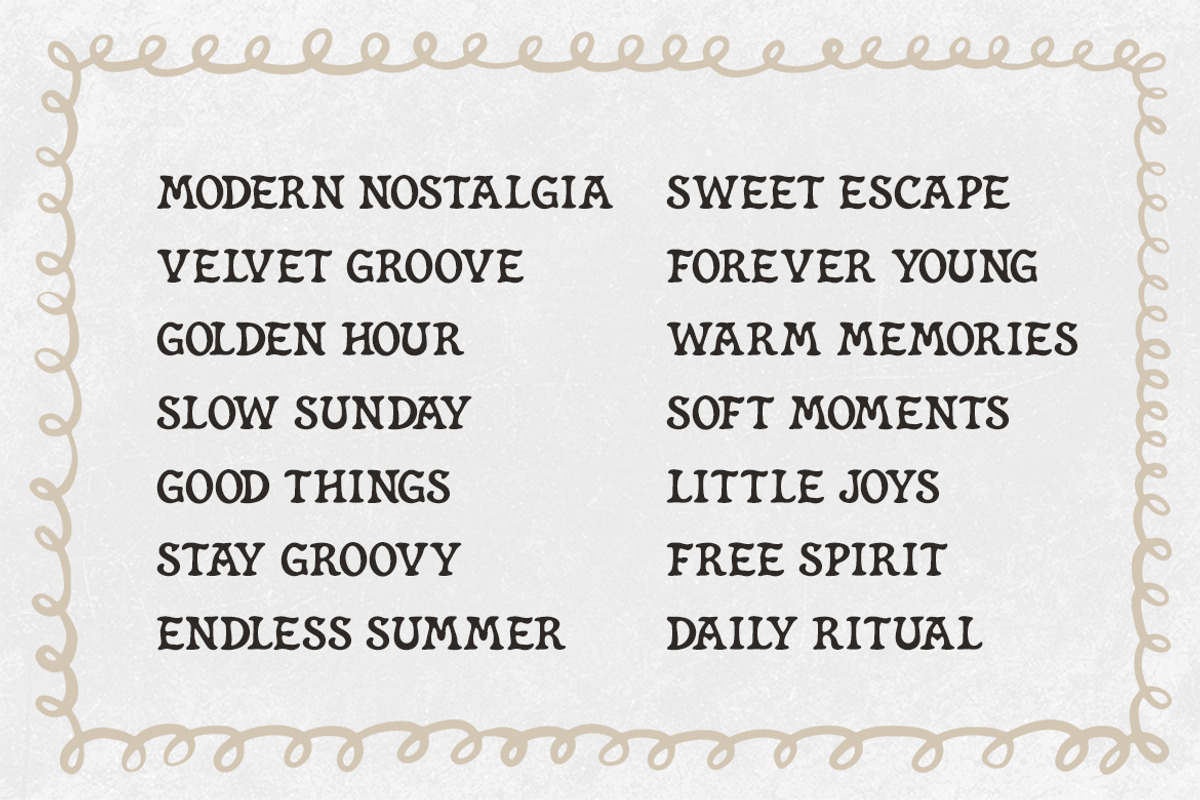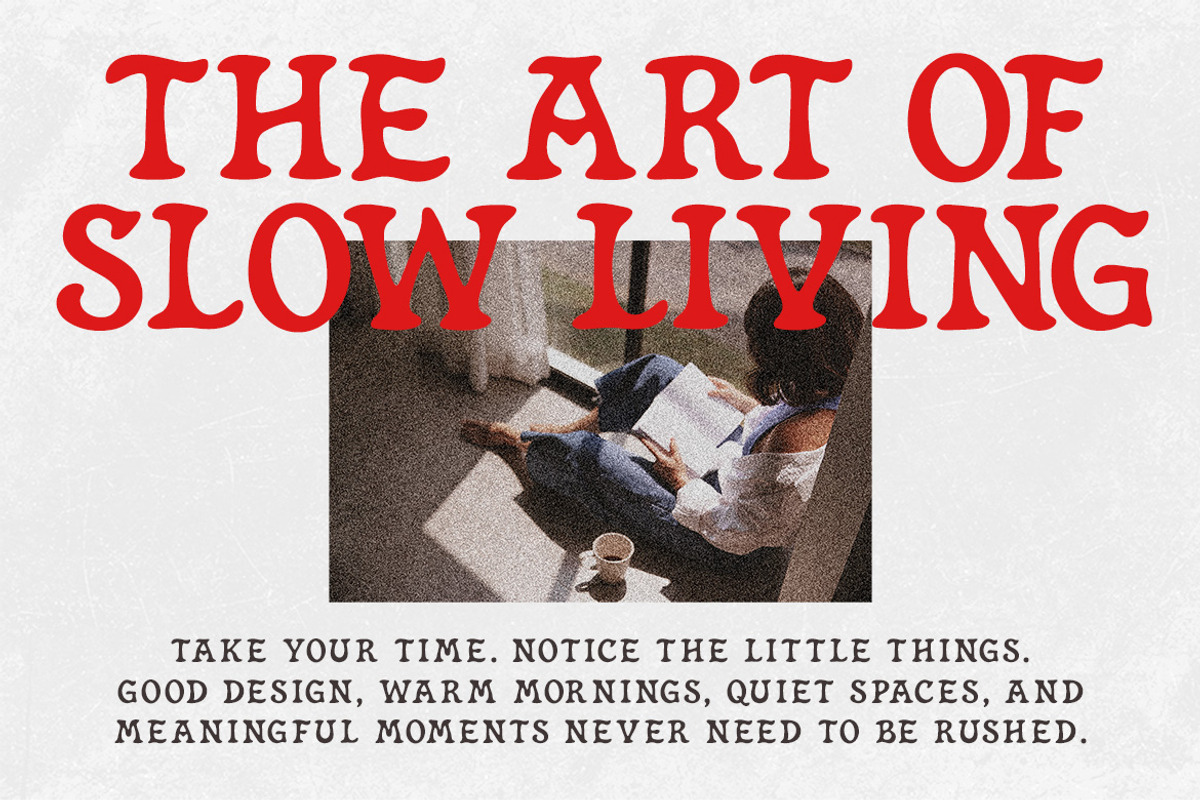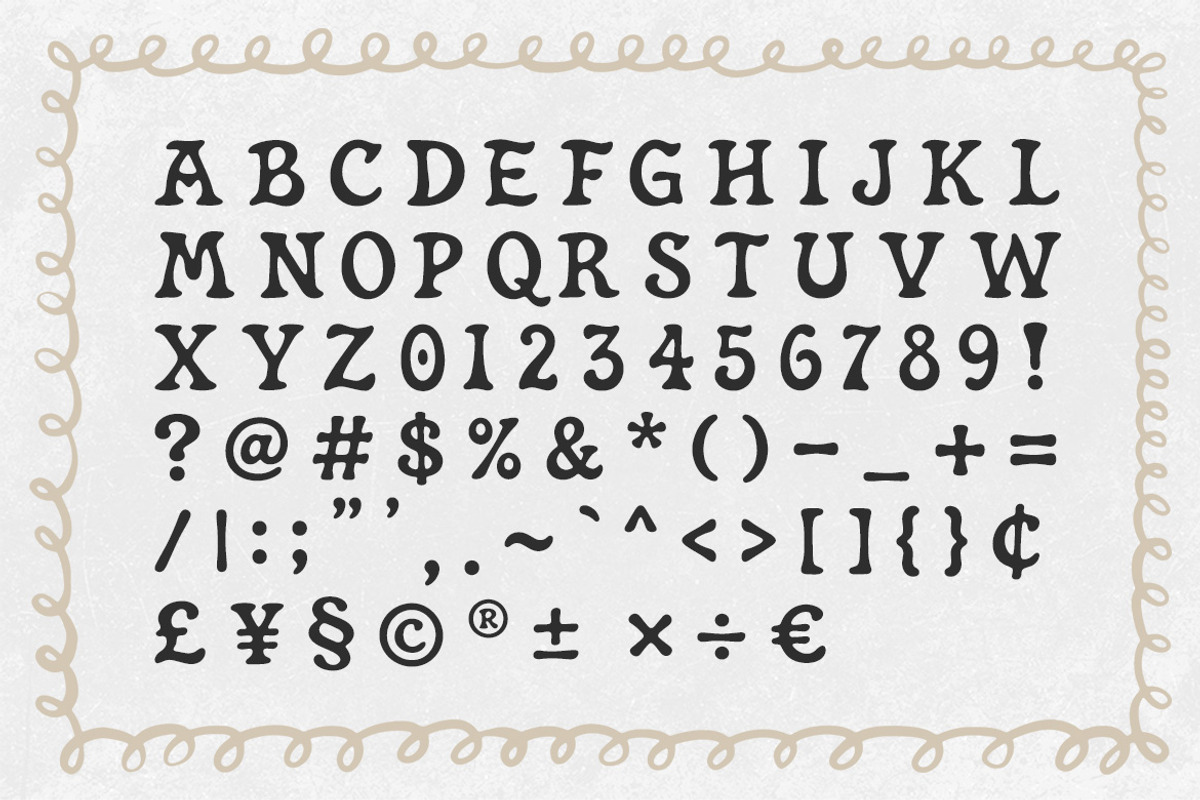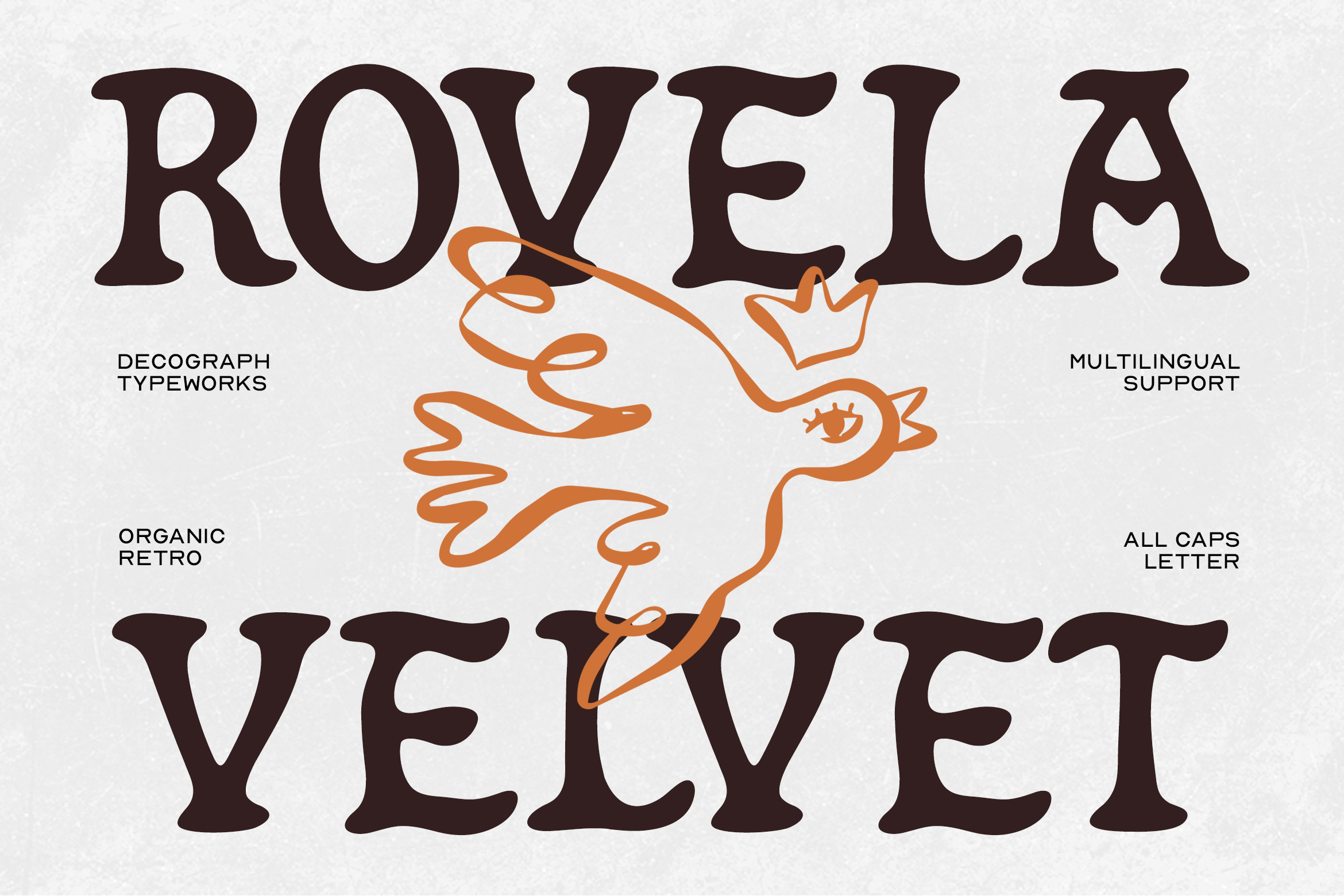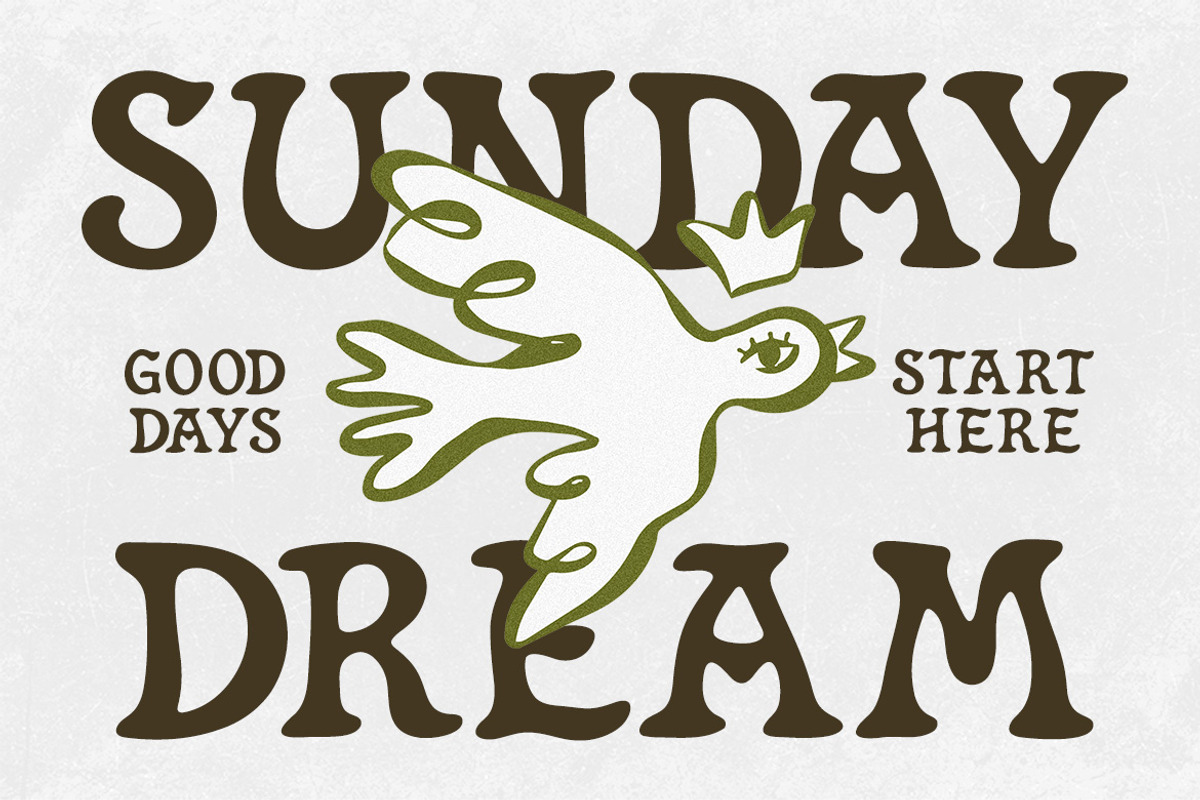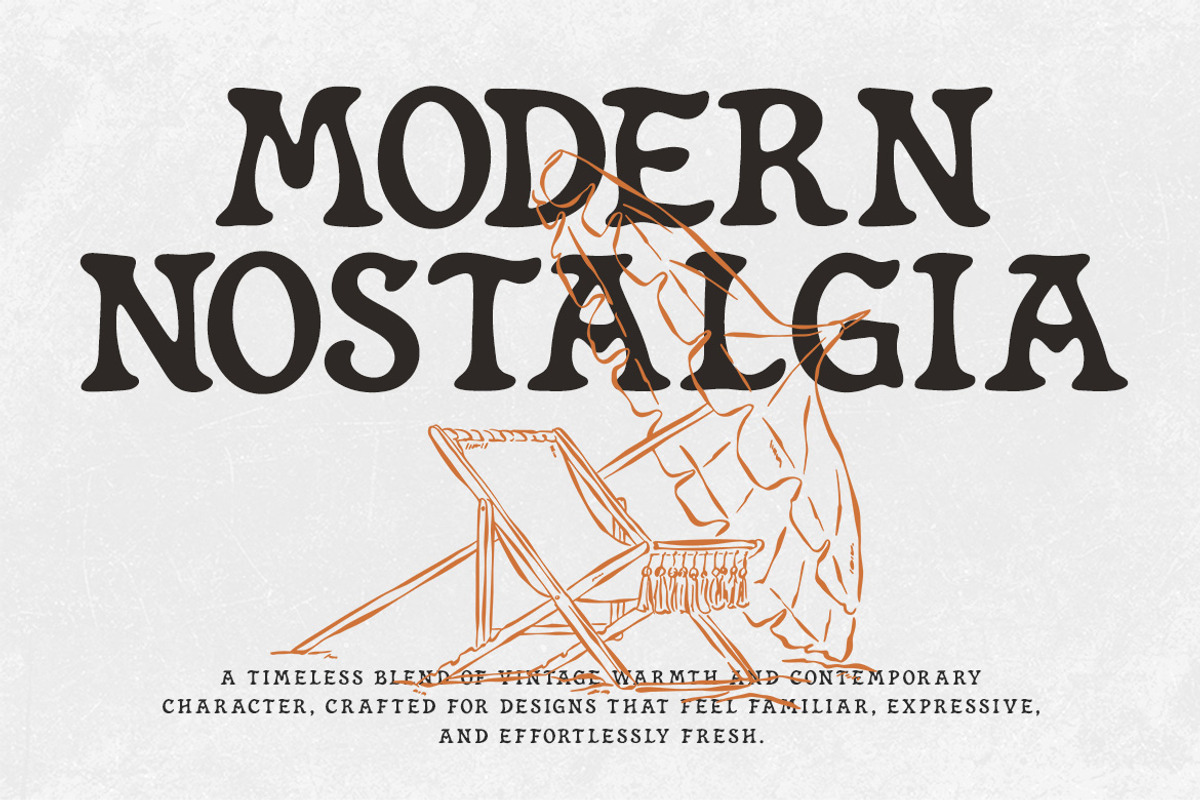
ROVELA VELVET – Organic Retro Font
ROVELA VELVET is an organic retro serif display typeface that combines broad, softly sculpted letterforms with gently flared terminals and flowing curves. Its moderate contrast, rounded transitions, distinctive counters, and subtly unconventional construction create a nostalgic personality without feeling overly traditional. The generous proportions give headlines a confident presence while preserving an elegant and approachable rhythm. Designed for branding, logo design, editorial headlines, fashion graphics, beauty packaging, posters, magazines, and boutique identities, ROVELA VELVET delivers a visual tone that feels warm, refined, expressive, and distinctly retro-inspired.
Smooth Kerning